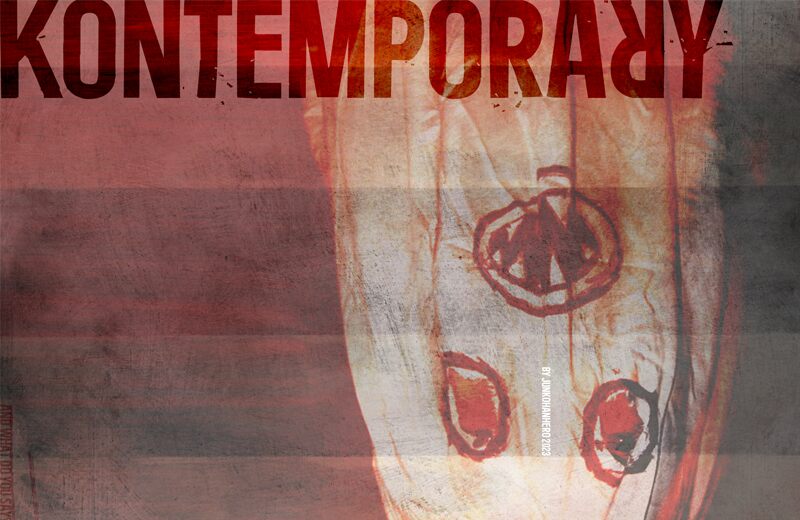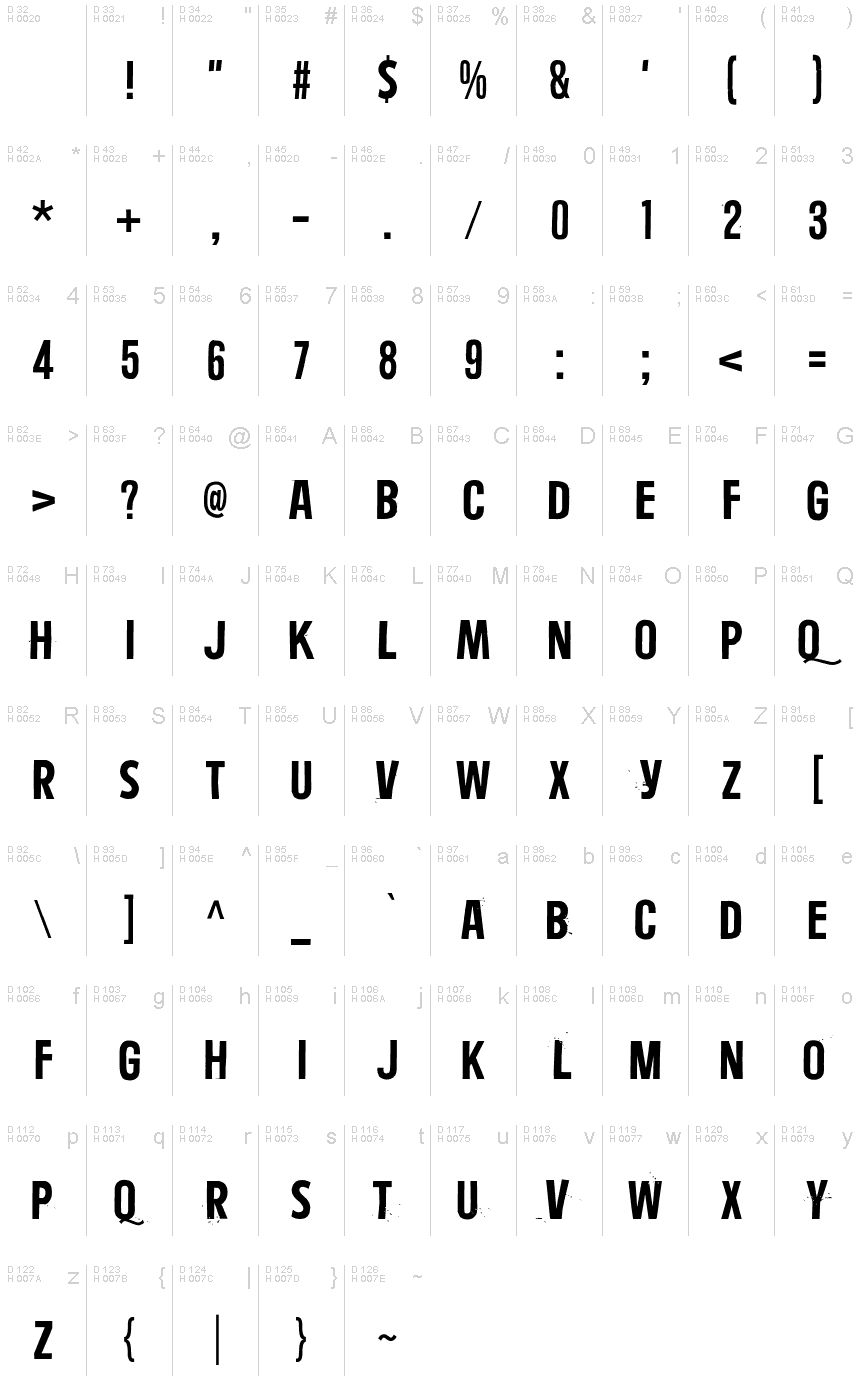
Kontemporary
Kontemporary, a display font designed by junkohanhero, is an eroded typeface that adds a unique twist to any project. Perfect for posters, logos and titles, Kontemporary can bring a distinctive look to your creative designs.